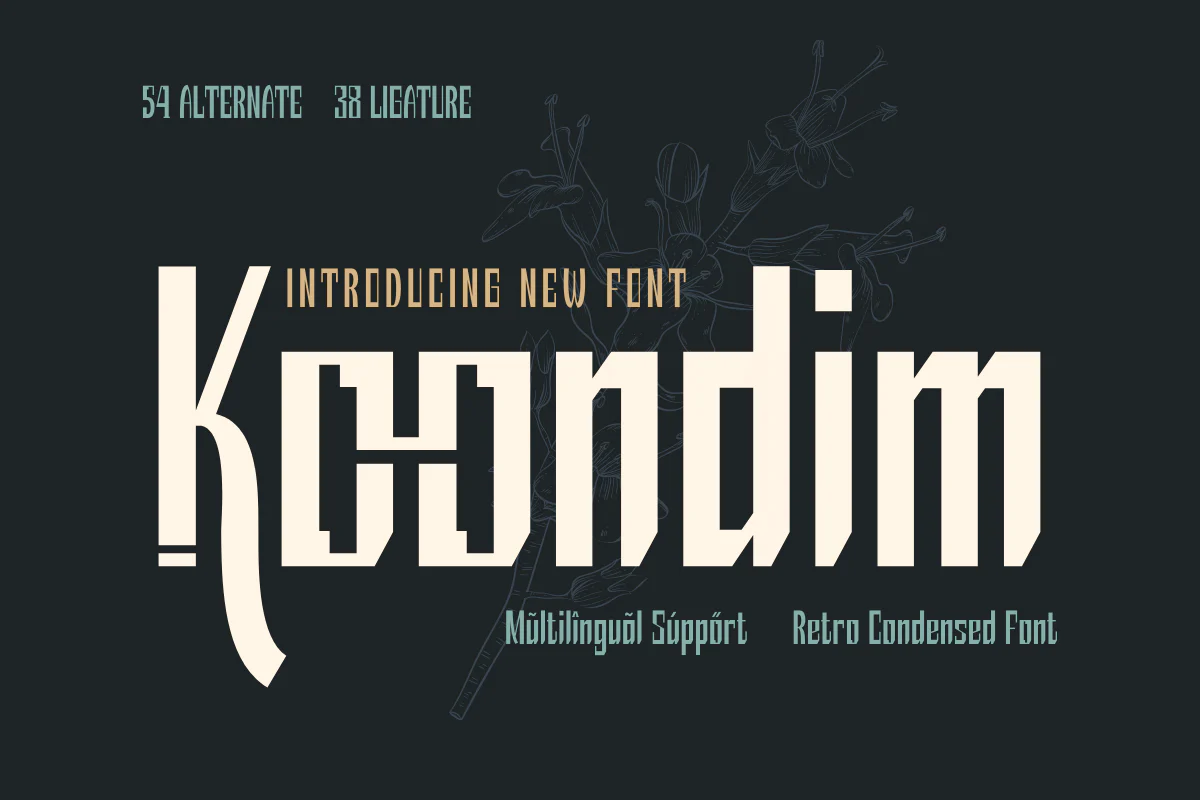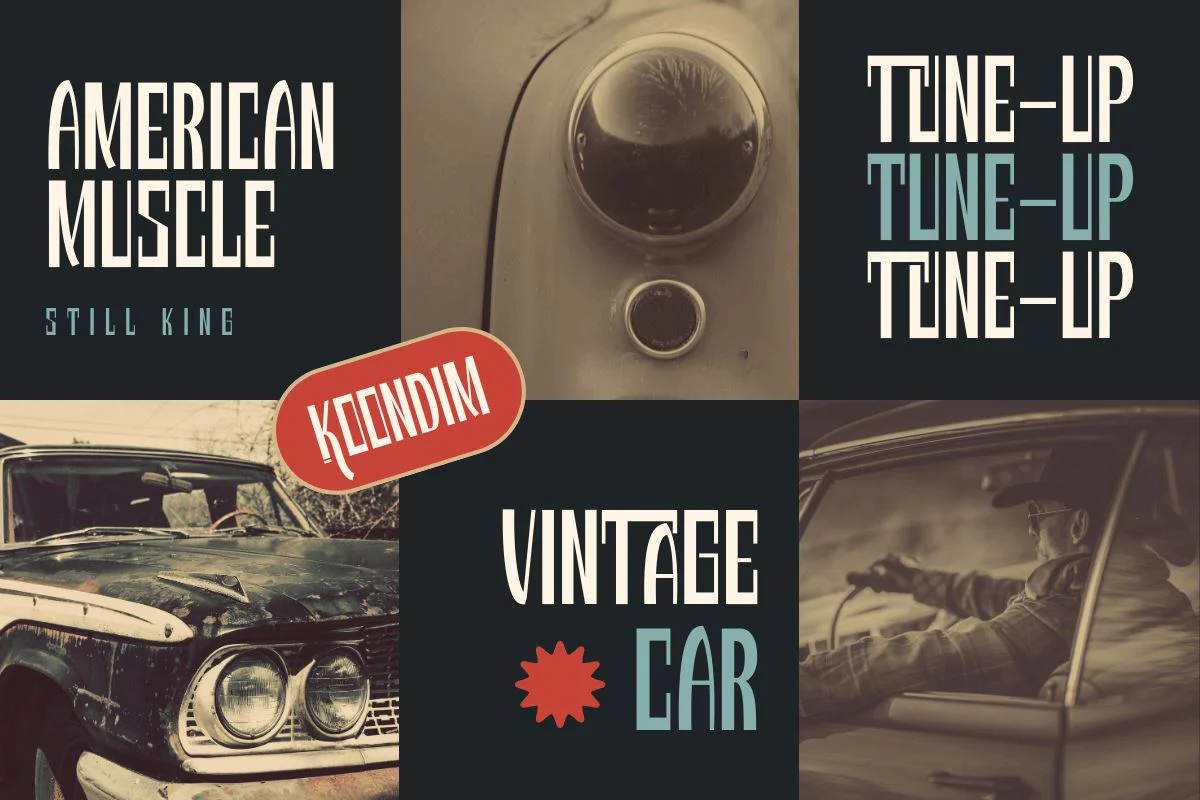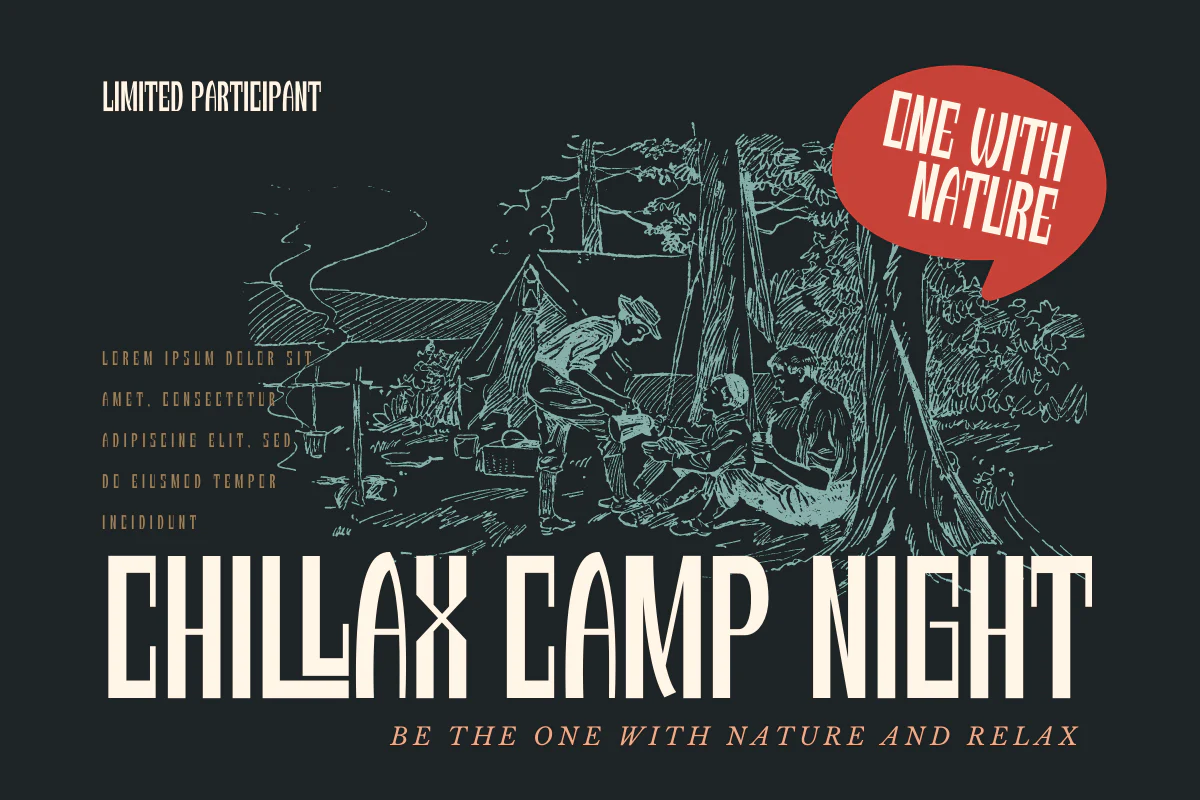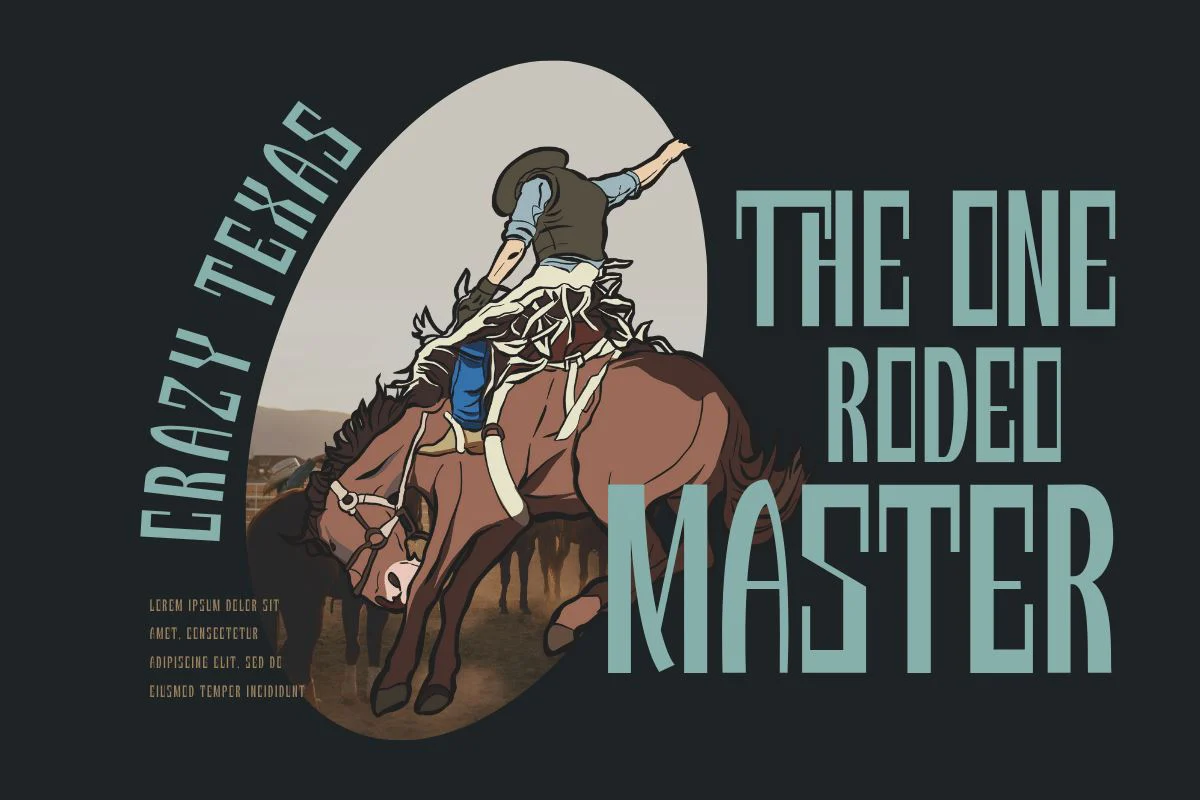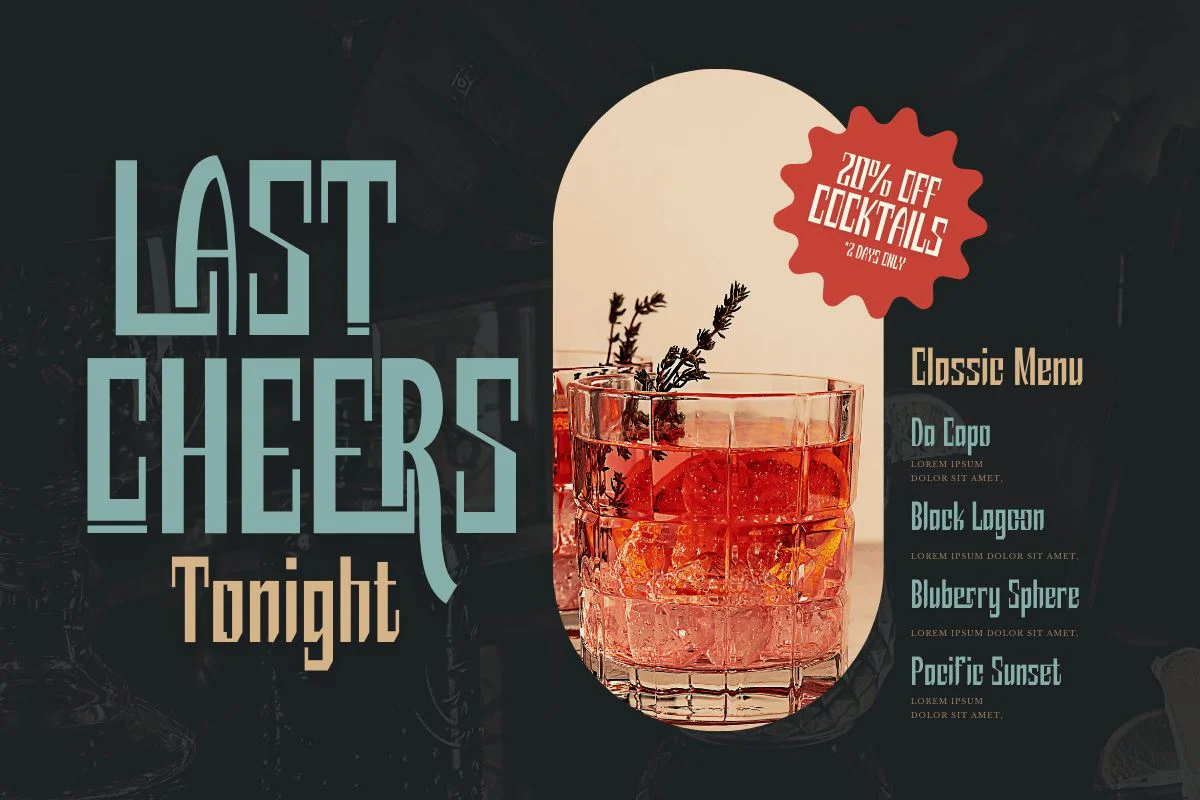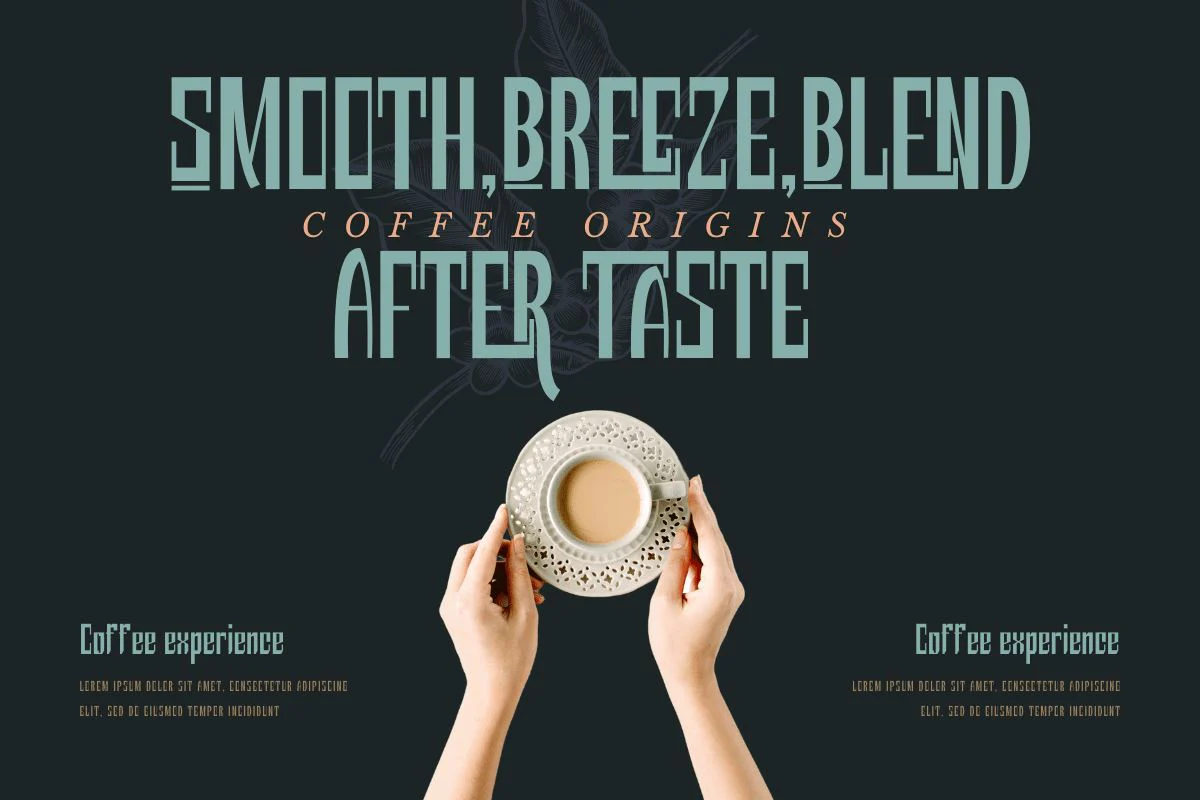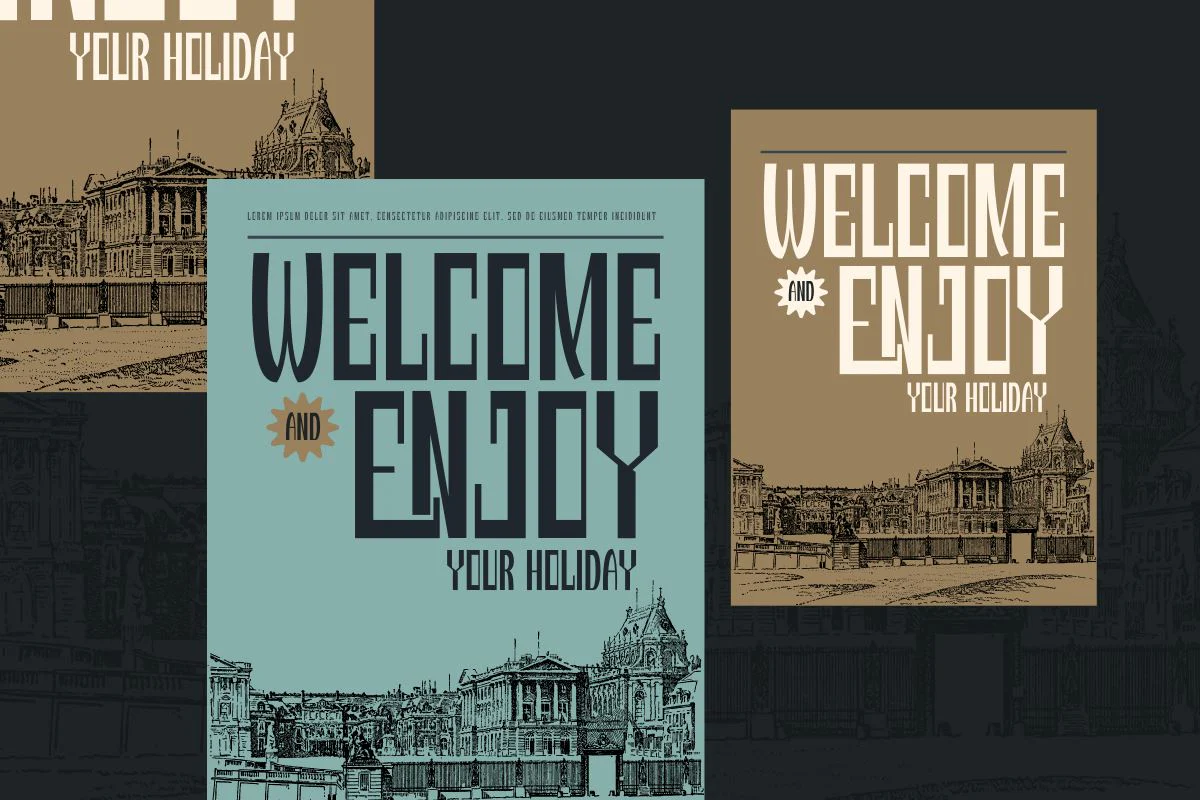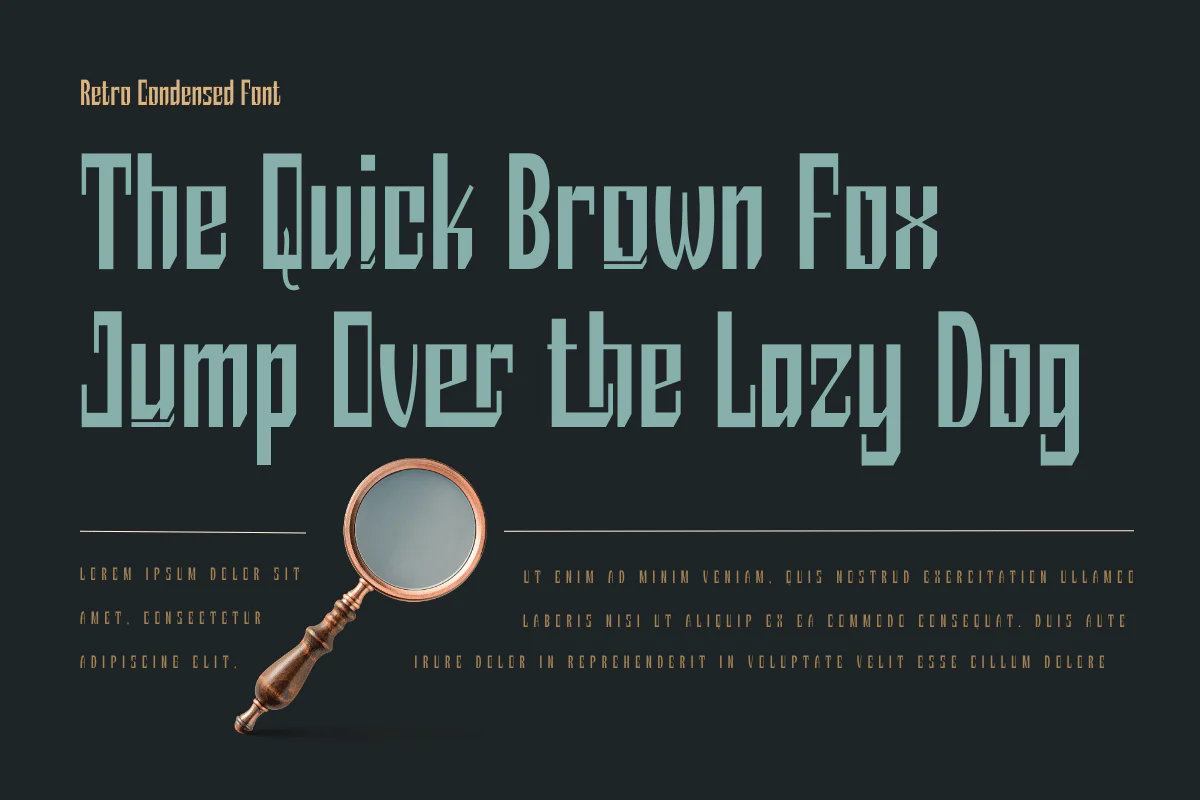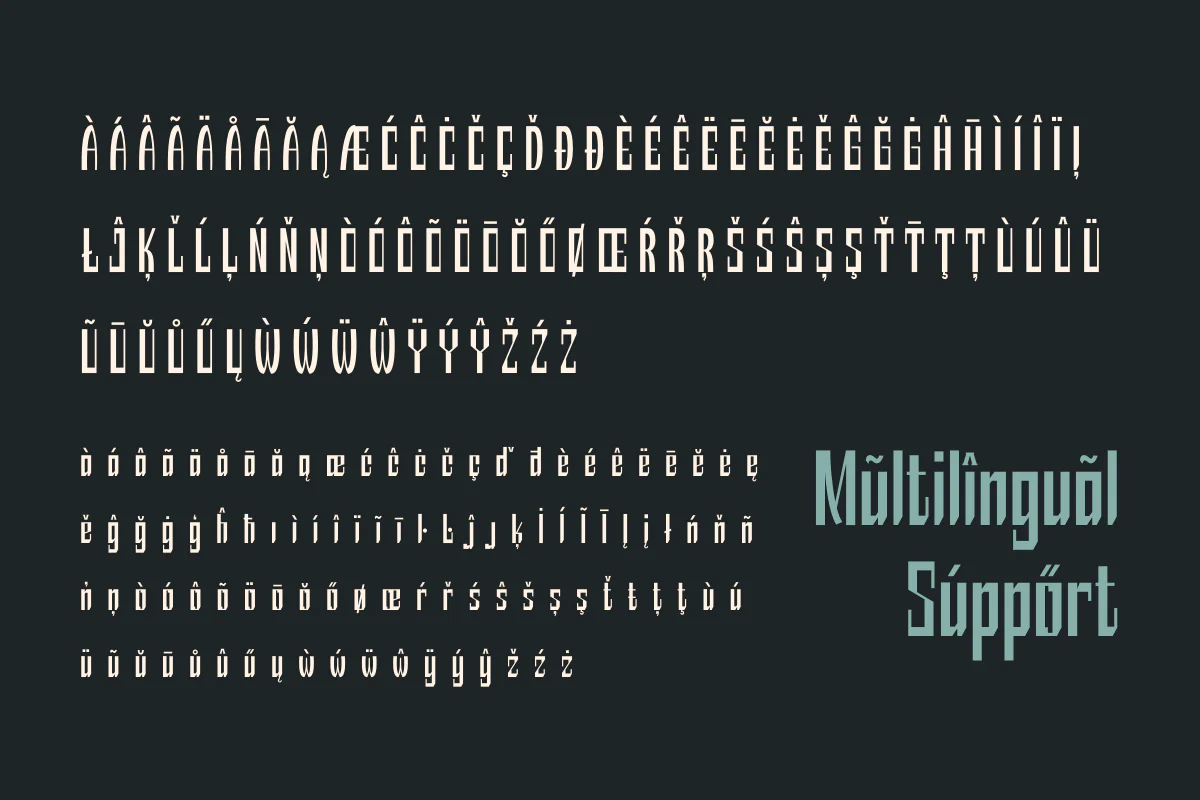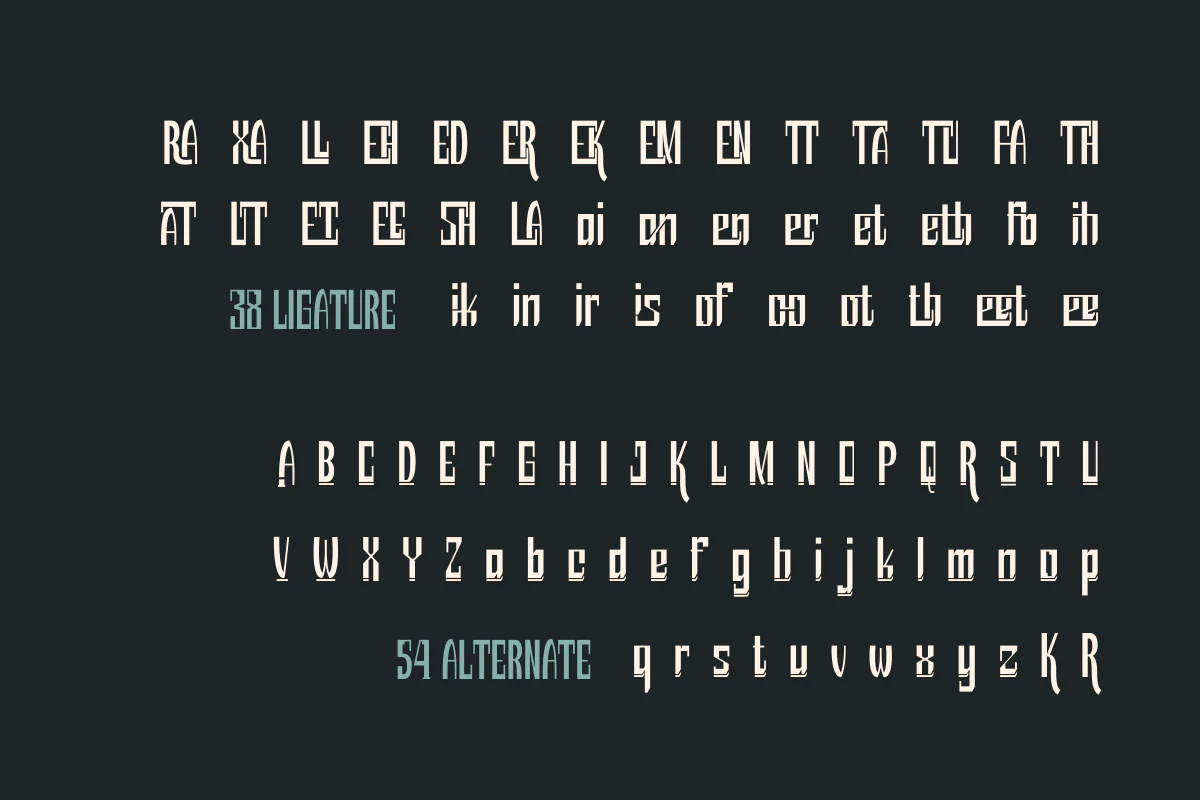
Koondim – Retro Condensed Font
Introducing Koondim, a retro condensed font with a classic retro-inspired design. This font is perfect for various special projects, such as branding, packaging, logos, and more. With its OpenType feature, Koondim comes with 54 alternate styles and 38 ligatures that add a stylish and unique touch to your design.
Koondim font is a versatile choice for any designer looking for a retro, condensed style with a touch of modern sophistication. The beautiful alternates and ligatures make it easy to create a customized look and elevate your designs. Plus, its multilingual support ensures that your message can be communicated clearly to a global audience.
Introducing Koondim, a retro condensed font with a classic retro-inspired design. This font is perfect for various special projects, such as branding, packaging, logos, and more. With its OpenType feature, Koondim comes with 54 alternate styles and 38 ligatures that add a stylish and unique touch to your design.
Koondim font is a versatile choice for any designer looking for a retro, condensed style with a touch of modern sophistication. The beautiful alternates and ligatures make it easy to create a customized look and elevate your designs. Plus, its multilingual support ensures that your message can be communicated clearly to a global audience.